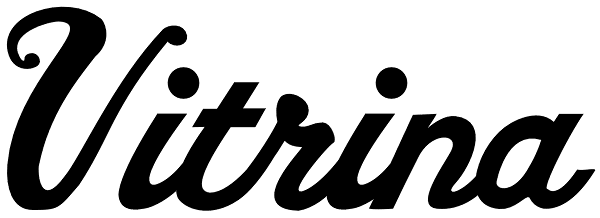
Vitrina
Vitrina is a script based on letterforms painted on a window for a restaurant called "Latin American Cafeteria". Its quirky script forms are meant to evoke a sense of hand painted signage. Vitrina means "store front window" in Spanish.